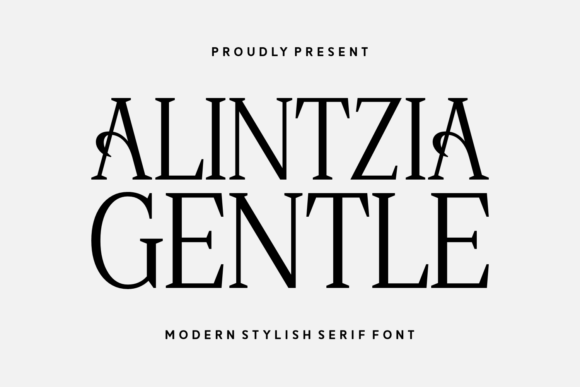
I still remember the countless hours I spent searching for the perfect font for a luxury branding project. My client wanted something that exuded elegance and refinement, but I was coming up empty-handed. That was until I stumbled upon Alintzia Gentle, a sophisticated serif font that radiates class and beauty. In this article, I’ll share my experience with Alintzia Gentle, its features, and how to make the most of it in your designs.
An Honest Review of Alintzia Gentle
- ✨ Elegant and refined design, perfect for luxury branding and wedding invitations
- ✅ Delicate serifs and graceful curves that add a touch of sophistication to any project
- 💯 Timeless yet modern feel that works well in both print and digital designs
- 🎨 Highly versatile, suitable for editorial design, packaging, and more
While Alintzia Gentle is an exceptional font, there are a few things to keep in mind:
- 🤔 Limited availability of certain OpenType features in some software
- ⚠️ May not be suitable for body text due to its elegant, yet delicate design
The Story Behind Alintzia Gentle
Alintzia Gentle was designed with elegance and refinement in mind. Its creator aimed to craft a font that would evoke a sense of luxury and sophistication, while still being approachable and modern. The result is a font that works beautifully in a variety of design contexts, from wedding invitations to high-end branding.
Q: What makes Alintzia Gentle suitable for luxury branding?
A: Alintzia Gentle’s elegant design, delicate serifs, and refined lines make it perfect for luxury branding projects that require a sophisticated and high-end feel.
Q: Can I use Alintzia Gentle for body text?
A: While Alintzia Gentle is an exceptional font, its delicate design may not be suitable for body text. It’s best used for headlines, titles, or short paragraphs where its elegance can shine.
Q: Does Alintzia Gentle support OpenType features?
A: Yes, Alintzia Gentle supports various OpenType features, including ligatures and stylistic alternates. These features can be accessed in compatible software like Adobe Photoshop and Illustrator.
Q: Is Alintzia Gentle a versatile font?
A: Absolutely! Alintzia Gentle works beautifully in various design contexts, from print to digital designs, and can be used for luxury branding, wedding invitations, editorial design, and more.